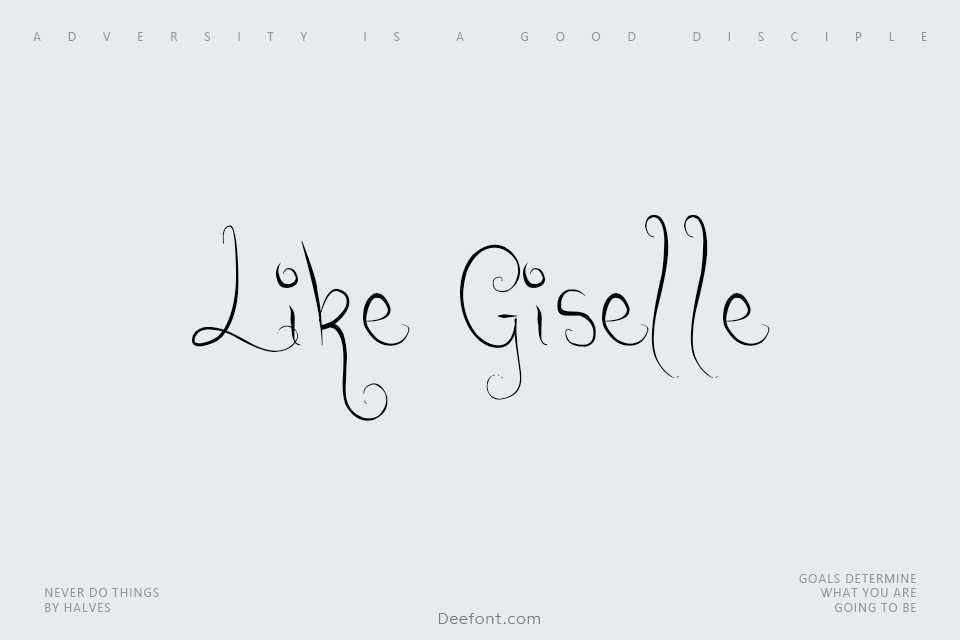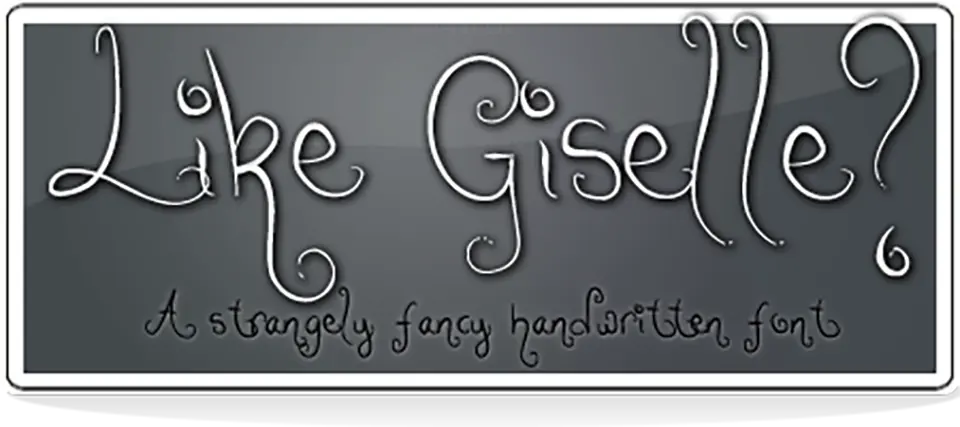
Like Giselle Font
Like Giselle is a delightful curly and fancy script font designed for creative projects requiring decorative typography. This handwritten-style font features elegant curves and playful flourishes, making it perfect for invitations, posters, and headline designs. The font’s distinctive curly aesthetic brings personality and charm to any text-based project, offering designers a versatile tool for creating eye-catching, modern compositions with a touch of whimsical elegance.